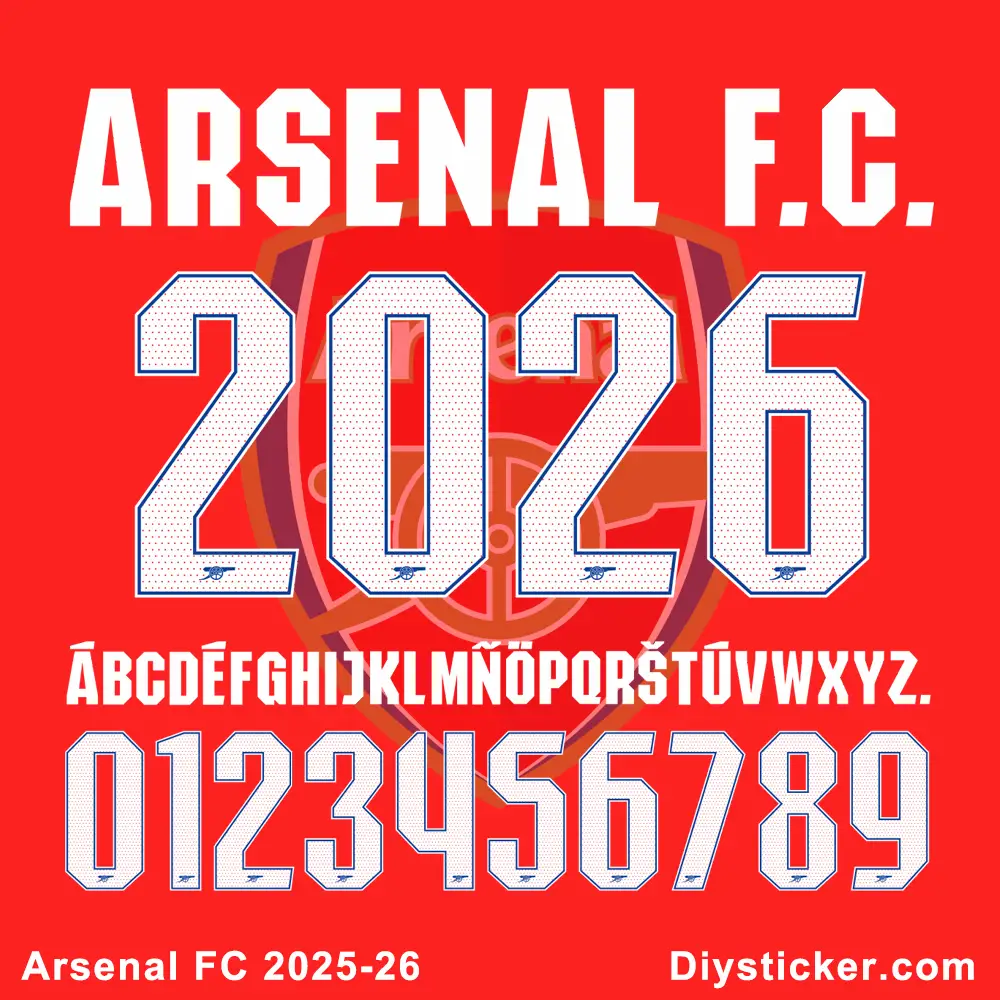
Introducing the official Arsenal 2025-26 font – the exact typeface used on the team’s matchday kits and official merchandise. This premium font package is essential for designers, fans, and custom apparel businesses.
Note: There is no mark on the number, no small hole/dot or any type of effect (truetype rule quality, it will crash the ttf file), so ttf only has normal font, details can be added through vector software editing.